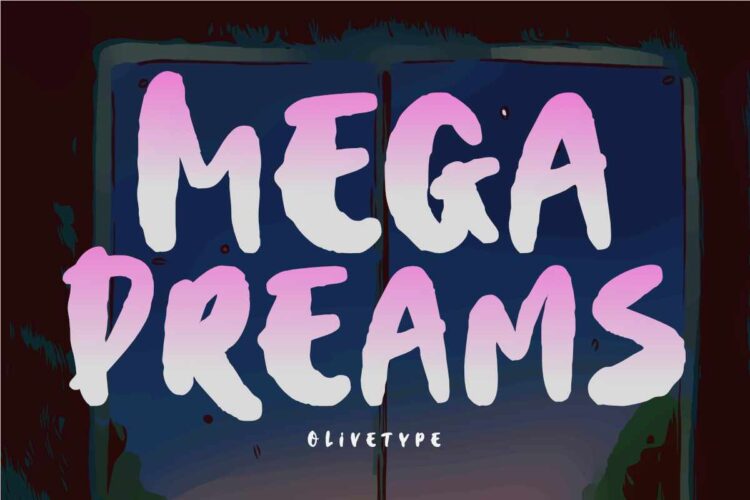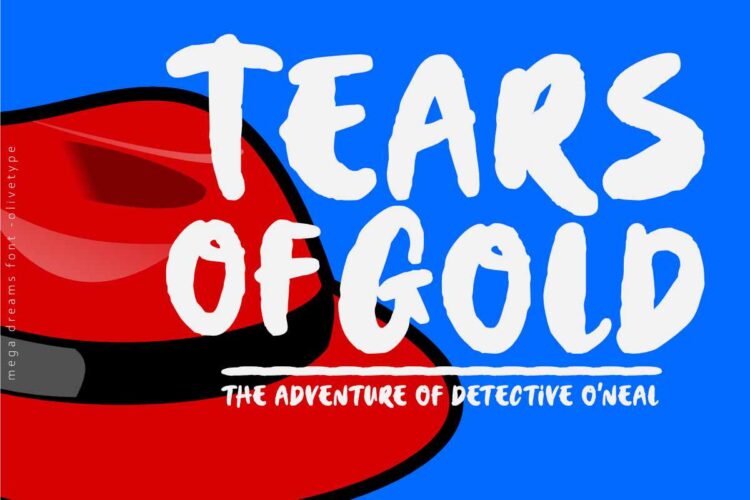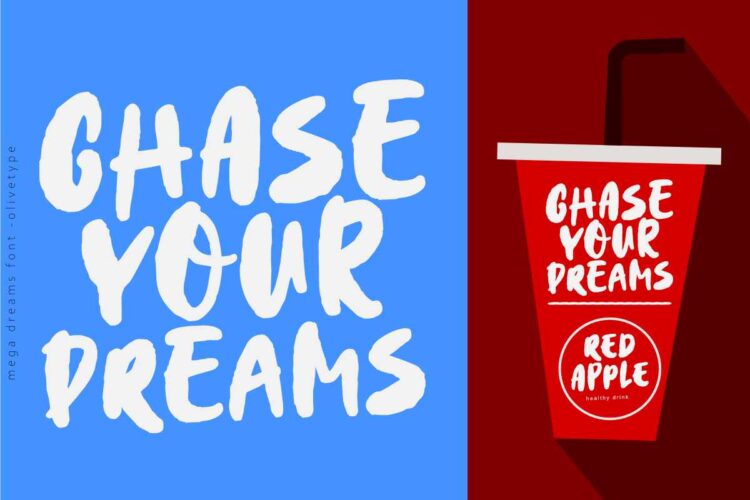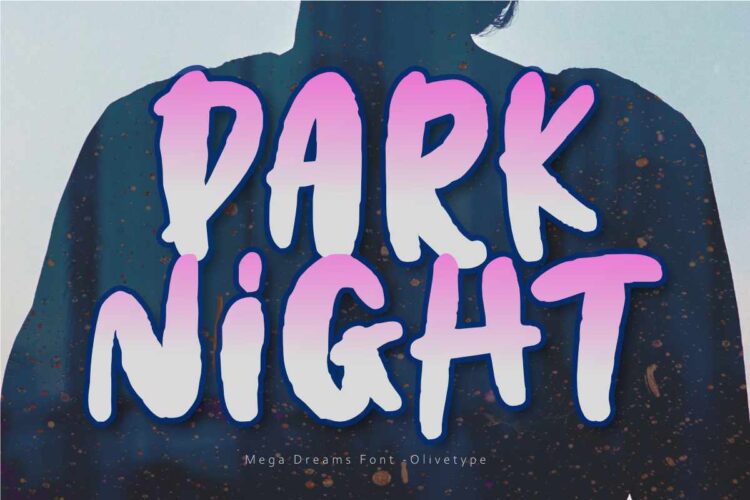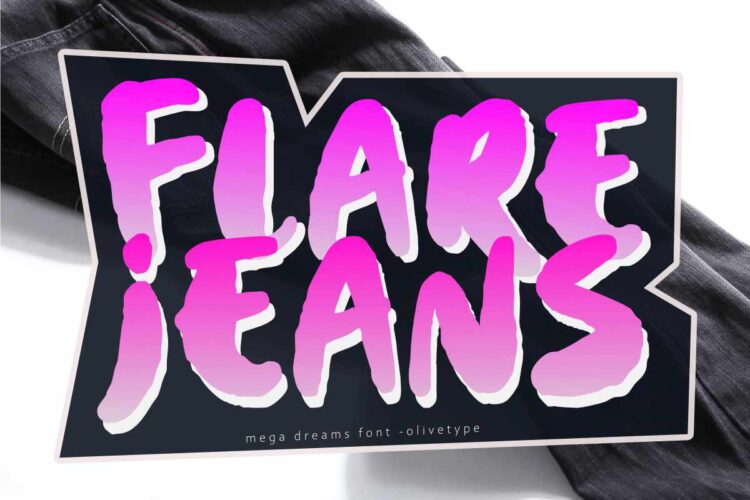
Rugged and masculine, Mega Dreams is a cool brush font for any project that needs a manly touch. Whether it’s a poster headline or website title, this font will add an extra bit of oomph.